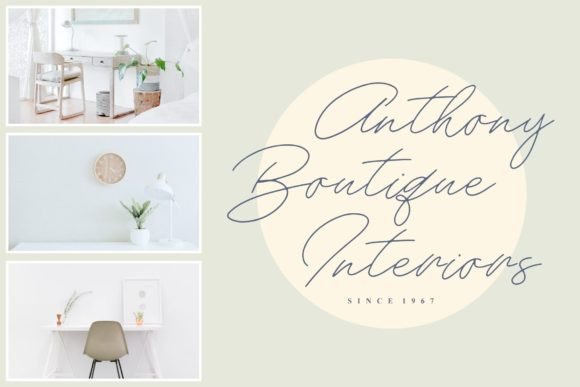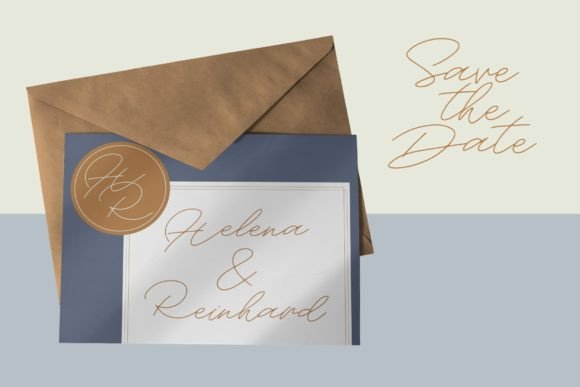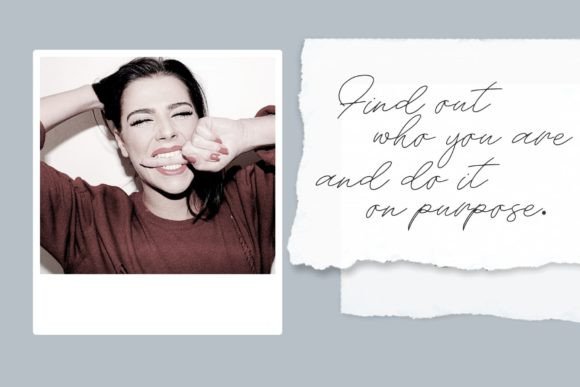
Introduction to Prestyn Font
As a designer, there’s nothing quite like the thrill of discovering a new font that sparks your creativity. Whether you’re working on a high-profile project or a personal passion project, the right font can make all the difference. Recently, I stumbled upon the Prestyn Font, and I just couldn’t wait to share it with the design community. This delicate monoline script font has been making waves in the design world, and for good reason.
With its large looping capitals and elegant lines, the Prestyn Font is the perfect addition to any design resource. Whether you’re creating a signature-style logo, a quote, or some beautiful stationery, this font is sure to elevate your work. And the best part? It’s available for free download, making it an accessible design resource for designers of all levels.
One of the standout features of the Prestyn Font is its transparent background, which makes it easy to customize and manipulate. This flexibility is invaluable for designers, who often need to adapt their work to fit specific design requirements. Whether you’re working on a creative project or simply looking to add some visual interest to your designs, the Prestyn Font is definitely worth checking out.
Key Features of Prestyn Font
- High-quality design resource with a modern and elegant aesthetic, perfect for creative projects.
- Features a transparent background, allowing for seamless integration into any design project.
- Available in a single weight, making it easy to use in a variety of design contexts.
Honest Review: Prestyn Font
I recently had the chance to work with the Prestyn Font, and I’m excited to share my honest review with you. This font is a fantastic design resource that can elevate any creative project.
What works well: ✨ The high-quality design of the Prestyn Font makes it perfect for various applications, from editorial content to branding materials. The font’s clean and modern aesthetic gives it a sophisticated look that’s hard to resist. I also appreciate the fact that it’s available for a free download, making it accessible to designers of all levels.
What could be improved: ⚠️ While the Prestyn Font is generally well-designed, I did notice that it lacks a transparent background option. This can be a bit limiting for designers who need to incorporate the font into complex backgrounds or compositions.
Overall impression: I’m thoroughly impressed with the Prestyn Font. Its high-quality design, modern aesthetic, and free download make it a valuable addition to any designer’s toolkit. While it may not be perfect, its limitations are minor compared to its many strengths.
- High-quality design suitable for various applications
- Modern aesthetic with a sophisticated look
- Lacks transparent background option
Prestyn Font
Prestyn Font is a high-quality design resource ideal for various creative projects. It’s available for free download with a transparent background, making it perfect for overlaying text or graphics.
Tips for Getting the Most Out of Prestyn Font
To get the most out of Prestyn Font, use it in combination with other design elements to create a visually appealing design. Experiment with different font sizes, colors, and styles to achieve the desired look.
Prestyn Font is ideal for:
– Social media graphics
– Blog posts and articles
– Infographics
– Presentations and reports